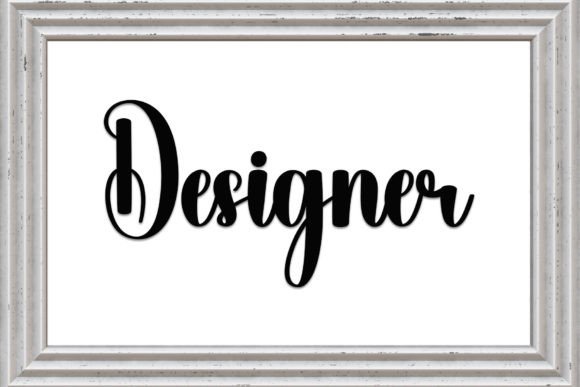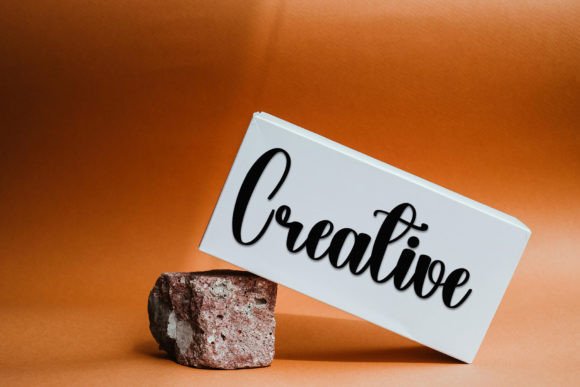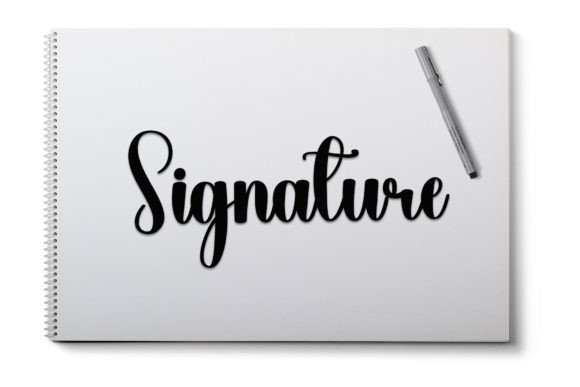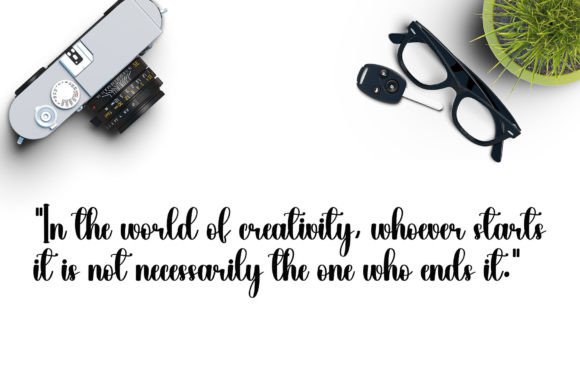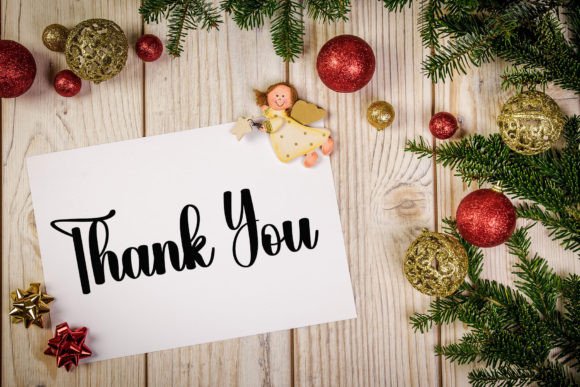
Deck the Halls with Type: Introducing the Baby School Font
As the holiday season approaches, I find myself getting into the festive spirit by rummaging through my collection of holiday decorations, crafting handmade gifts, and of course, designing merry greeting cards. There’s something magical about combining typography and illustrations to create a sense of wonder and joy. And that’s exactly what the Baby School Font does – it brings a touch of whimsy and charm to your designs.
This delightful typeface is designed to capture the essence of the holiday season, with its playful, decorative elements and unique flair. Perfect for greeting cards, gift labels, and holiday-themed projects, the Baby School Font adds a cheerful and nostalgic atmosphere to your words. As a designer, you’ll appreciate its PUA coding, which makes it easy to access all the amazing glyphs and ligatures.
Baby School Font Key Features
• Font Family: Baby School Font is a unique, hand-drawn font designed for educational and children’s content.
• Unique Characteristics: Baby School Font features playful, rounded shapes and bold lines, making it perfect for creating engaging and child-friendly content.
• Characters: The font includes a wide range of characters, including uppercase and lowercase letters, numbers, and punctuation marks, as well as special characters and symbols.
Baby School Font Review
Overall, I think the Baby School Font is a cute and playful option for child-related designs. Here are some aspects where it shines: ✨
• It’s great for titles and headings, adding a fun and whimsical touch to your designs.
• The font is highly legible, even at smaller sizes, making it perfect for body text.
• The character set is decent, with a good range of punctuation and special characters.
• The font may not be suitable for formal or professional designs, as it’s too playful for those contexts.
• The font family is limited, with only a few weights and styles available.
• Some users may find the font’s quirks and irregularities distracting, especially in long blocks of text.
In terms of overall impression, I’d say the Baby School Font is a great choice for child-related designs, educational materials, and other playful contexts. However, it may not be the best fit for more formal or serious designs.
The Baby School Font is perfect for creating playful and whimsical designs, such as:
• Baby announcements and invitations
• Children’s party decorations and invitations
• Education and learning materials for young children
Remember to use the font in moderation and balance it with other design elements to avoid overwhelming the viewer.